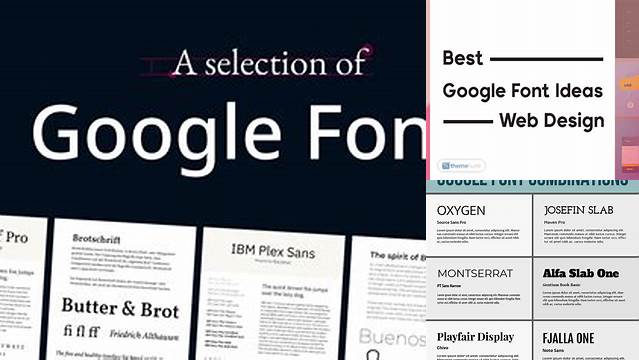
Top Google Fonts For Websites In 2025
Hey everyone! Choosing the best Google Fonts for websites is super important, especially as we head into 2025. It's not just about picking something that looks nice; it's about creating a website that's both visually appealing and easy to read. In this article, we'll dive deep into the world of Google Fonts, exploring the top picks for 2025. We'll look at font pairings, how they impact user experience, and how to make sure your website looks amazing on any device. Getting this right can seriously level up your website's design. Let's get started!
1. Trending Google Fonts for 2025: What's Hot?
So, what are the best Google Fonts for websites that are predicted to be trending in 2025? Well, the design landscape is always changing, and we're seeing some really exciting shifts. Think clean, modern fonts that are easy on the eyes. Think fonts that work well in a variety of contexts, from headlines to body text. And, of course, think about readability. A great font will enhance your content, not distract from it. Trends are important guys, but always keep your brand's voice in mind too. Right now, we're seeing a move towards minimalist designs. This means simpler fonts that focus on clear communication. A lot of designers are also experimenting with font pairings that create contrast. Combining a bold headline font with a more subdued body font can be really effective. So, keep an eye out for versatile, readable fonts with a touch of personality. Look at how big brands are using fonts. Notice any patterns? Also, remember that trends come and go, so choose fonts that fit your brand's core values and what you are trying to communicate.
1.1. Key Characteristics of Popular Fonts
When we are talking about what makes a font popular, we're essentially looking at a few key characteristics. Readability is king. People need to be able to read your text easily, regardless of the device they're using. So, the best Google Fonts for websites will be readable at various sizes. Versatility is also crucial. Can the font be used in headings, body text, and even buttons? The more versatile the font, the more design options you have. Also, consider the font's personality. Does it match the tone and style of your brand? Modern fonts tend to have a clean, neutral feel that makes them perfect for various uses. But, if you're going for a more unique style, look for fonts with distinctive features. Another thing to think about is the weight and style of the font. Do you need a font with multiple weights (like bold, light, and italic) to create visual hierarchy? Finally, consider the design and any unique features that might add character to the text. Choosing the right characteristics can totally make a website's overall design pop!
1.2. The Role of Font Trends in Web Design
Font trends play a huge role in web design! They can set the mood, grab people's attention, and convey a brand's personality. By picking the best Google Fonts for websites, you are keeping your website up-to-date and appealing. Right now, as we touched on before, minimalist fonts are popular because they go hand-in-hand with the current trends in clean, user-friendly designs. They help to make the user experience super smooth and focus on clarity. Trends can also influence how people perceive your brand. A modern font might give the impression of innovation, while a more classic font might communicate a sense of trust. However, do not be pressured to follow trends just because. Make sure that they align with your brand's identity and communication goals. You might even create your own trend. Keep in mind that font trends also reflect changes in technology and user behavior. As devices evolve, designers need to think about how fonts look on different screen sizes and resolutions. Being aware of these trends will help you make more informed decisions about fonts, keeping your website fresh and engaging.
2. Best Google Fonts for Readability: Prioritizing User Experience
When you are picking the best Google Fonts for websites, you can’t forget about readability. It is the most important factor in user experience. No matter how great a font looks, if it's hard to read, your visitors will bounce off your site in seconds. Readability makes sure that your text is easy to understand. This involves things like the font's letterforms, spacing, and size. The goal is to make reading a breeze, allowing people to focus on the content and not struggle with the text. This will definitely make your website more user-friendly, and it will keep users coming back for more.
2.1. Top Fonts Known for Excellent Readability
Several fonts stand out when it comes to excellent readability, making them some of the best Google Fonts for websites. Open Sans is a super popular choice for its clean lines and open letterforms, making it easy to read on screens. Lato is another great option, with its friendly and approachable look. It's designed to be versatile, so you can use it for both headlines and body text. Roboto is a classic, known for its readability and modern appearance. It's a great pick for websites that want to project a sense of professionalism. Montserrat is a versatile font that works well at various sizes, making it an excellent option for websites with lots of text. These fonts all share a few things in common: clear letter shapes, good spacing, and a range of weights to create visual hierarchy. When you're picking fonts for your site, consider the overall look and feel you want to create, but don't ever skimp on readability.
2.2. Optimizing Font Size and Weight for Readability
Optimizing font size and weight is super important when choosing the best Google Fonts for websites! It is a key element of readability. You want your text to be easy to read on any device. When it comes to font size, use a size that's large enough to read without any strain. As a general rule, body text should be between 16px and 18px. For headings, you can use larger sizes to grab attention. Font weight also affects readability. Using bold and semi-bold weights can help you highlight important information. But, don't overdo it. Too much bold text can actually make your content harder to read. You can also use font weight to establish a visual hierarchy. Try to create a clear structure that guides readers through your content. Remember, these adjustments will help you ensure your website is user-friendly and inviting for all visitors.
3. Pairing Google Fonts: Creating Visual Harmony
When you're trying to pick the best Google Fonts for websites, it’s a good idea to consider font pairings. This is the art of matching fonts to create visual harmony and enhance your website's design. Good font pairings make your website look more polished and make your content easier to read. The goal is to create contrast and balance. This helps users quickly grasp your content. Combining different font styles, like a bold headline font with a clean body font, can really make a website shine. When choosing font pairings, think about how the fonts complement each other. Do they have a similar style, or do they offer a clear contrast? The right pairings will make your website look stunning and easy to navigate.
3.1. Effective Font Pairing Strategies and Examples
Okay, so what are some of the best strategies for pairing fonts? First of all, try matching fonts that have a similar style or have a clear contrast. You can create a harmonious look by pairing fonts with similar letterforms and weights. Or, you can make a bolder statement by pairing a strong serif font with a clean sans-serif font. Another strategy is to use the same font family but with different weights and styles. This can create a cohesive look without being too busy. Let's look at some examples! Pair Open Sans with Roboto for a modern and easy-to-read combo. Or, pair Montserrat with Open Sans for a bold and clean look. You can also experiment with different pairings to find something that perfectly suits your brand's style. Experiment and test the pairings to make sure they enhance readability and look awesome on your site.
10.2. Preparing Your Website for Future Font Technologies
Preparing your website for future font technologies is important when you're selecting the best Google Fonts for websites. Get ready for these advancements. One of the best ways to prepare is to stay informed about new font technologies and trends. This helps you to make informed decisions and optimize your site. Learn about variable fonts. These offer greater flexibility and design possibilities. Make sure your website is designed for adaptability. Consider using responsive design techniques to make sure your fonts look great on every device. Keep your website up-to-date. Test your website on multiple browsers and devices. Be ready to adapt and update your website when new font technologies emerge. By preparing for the future, you'll be able to create websites that are modern, innovative, and user-friendly.